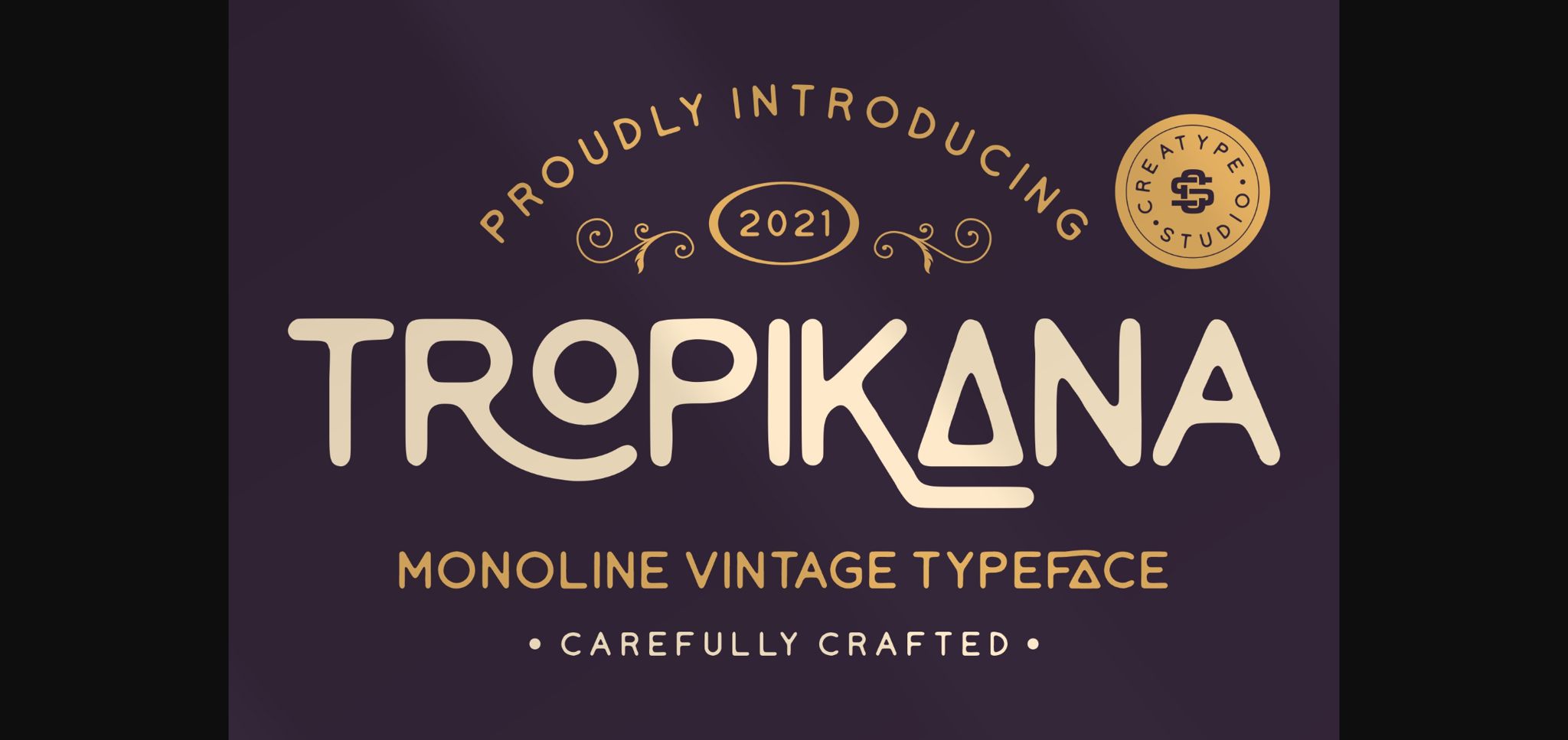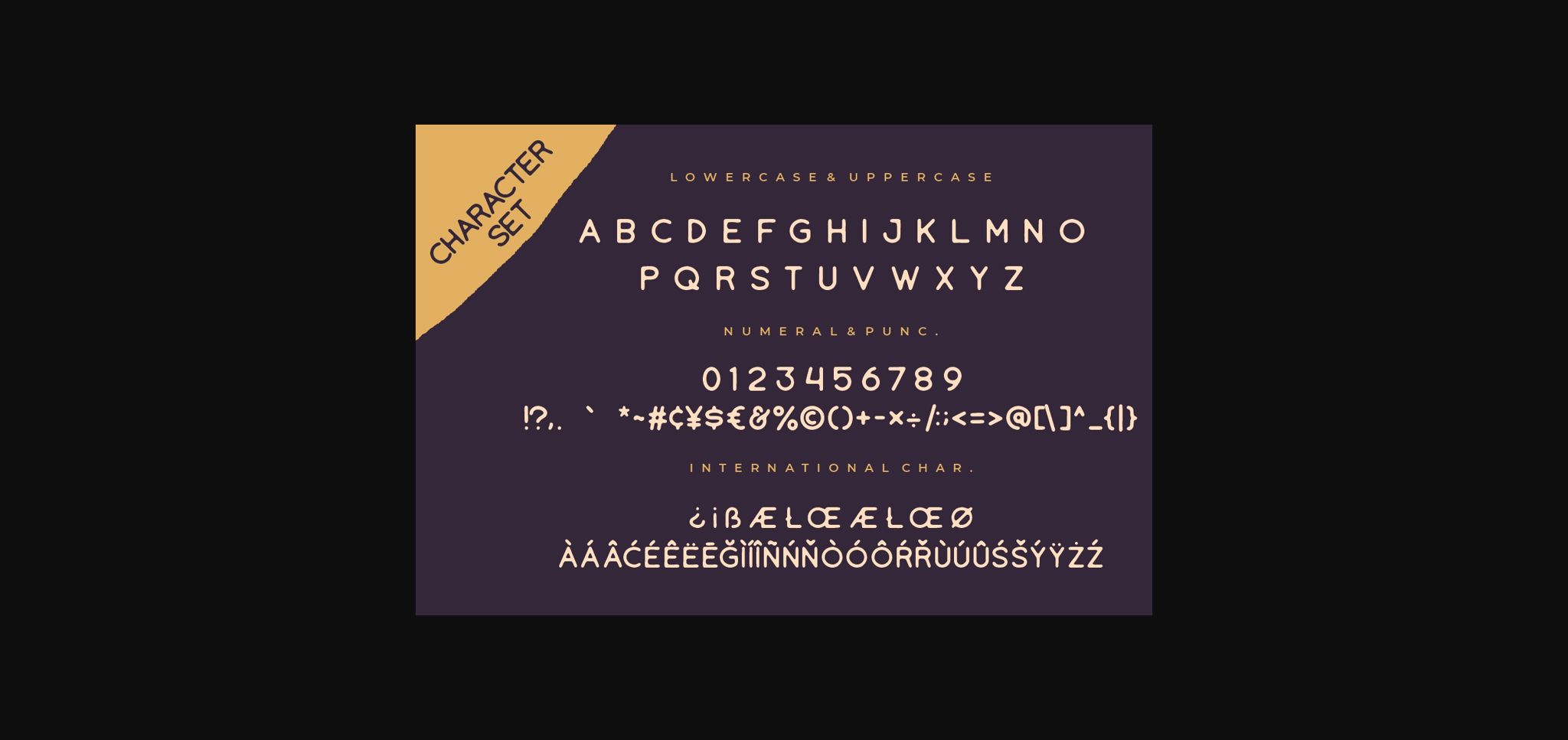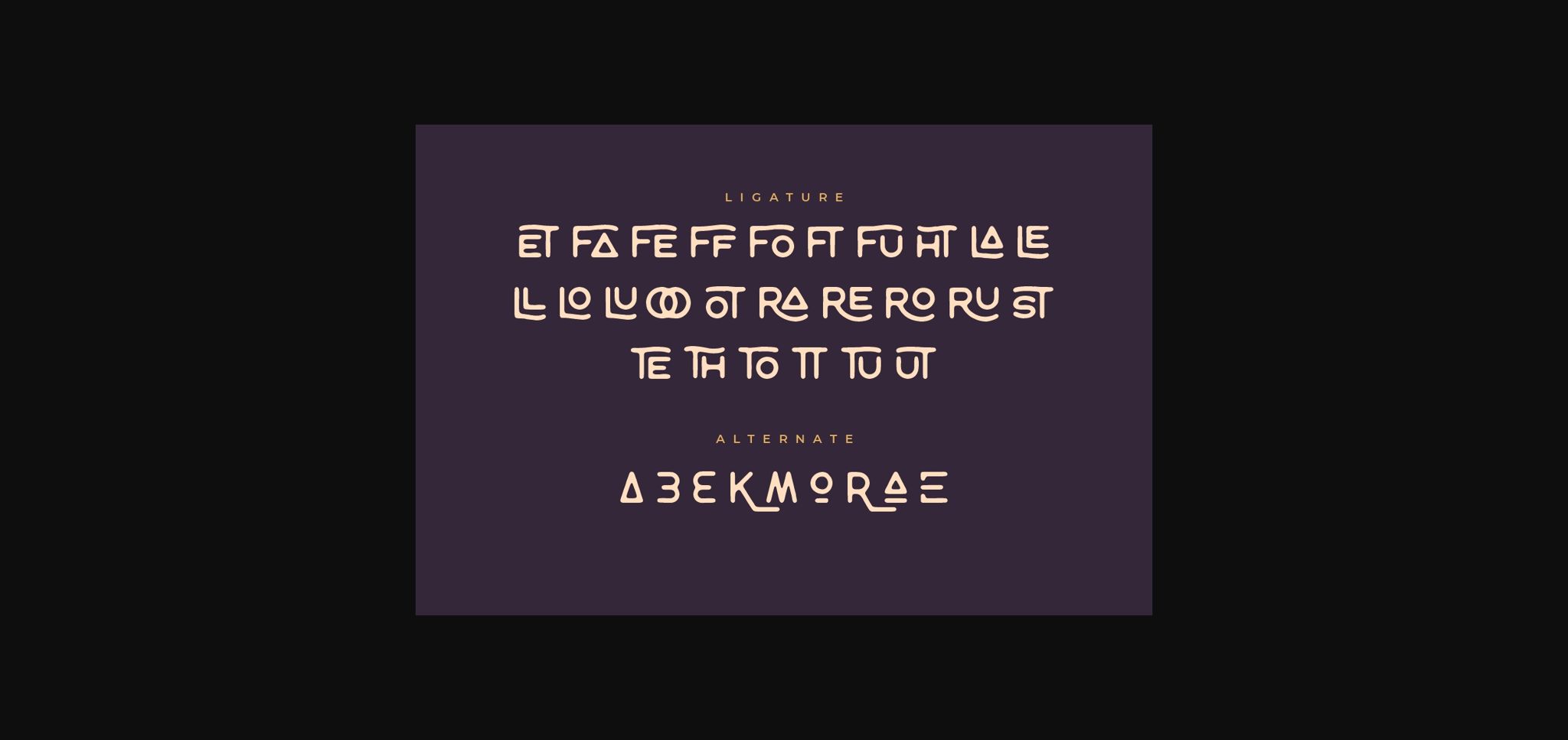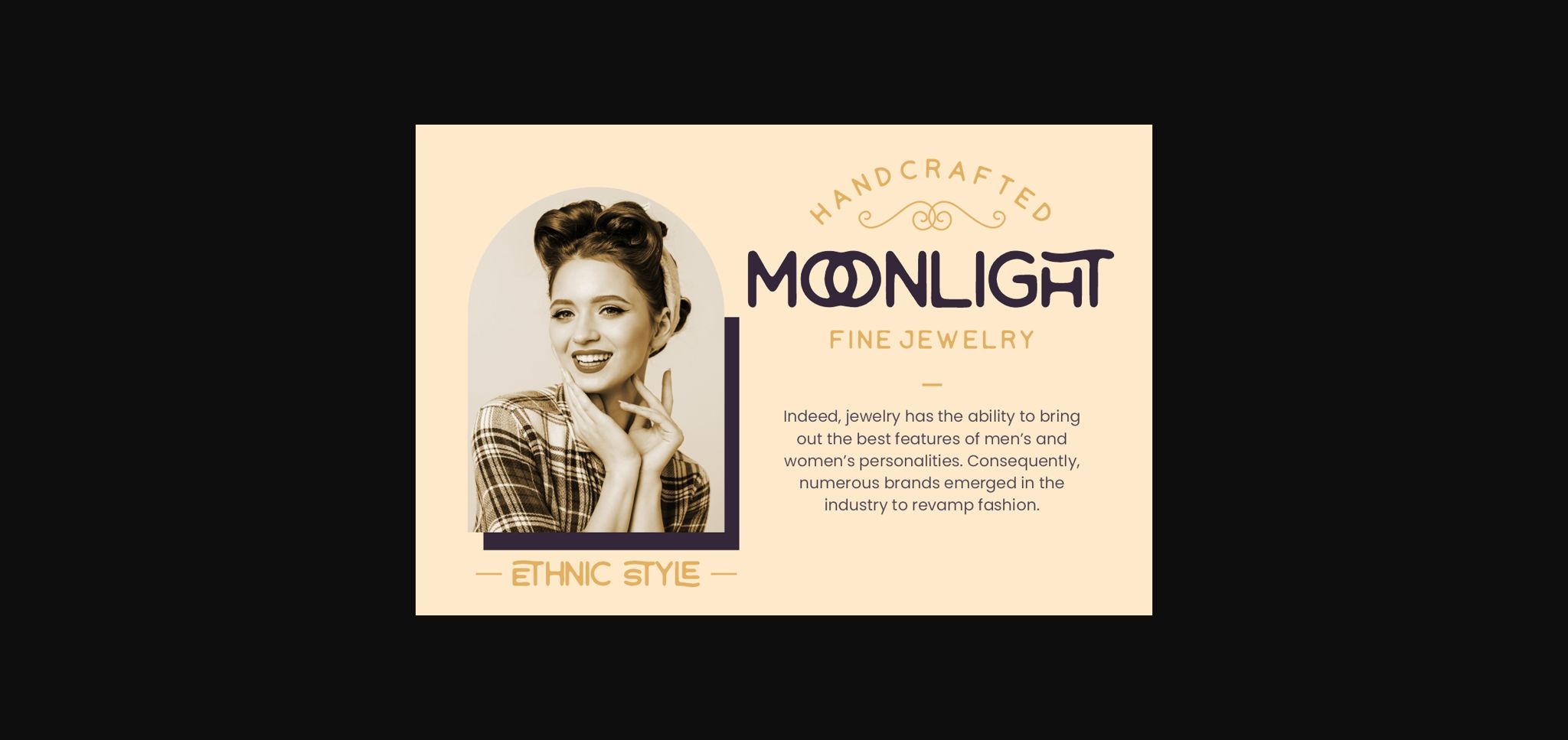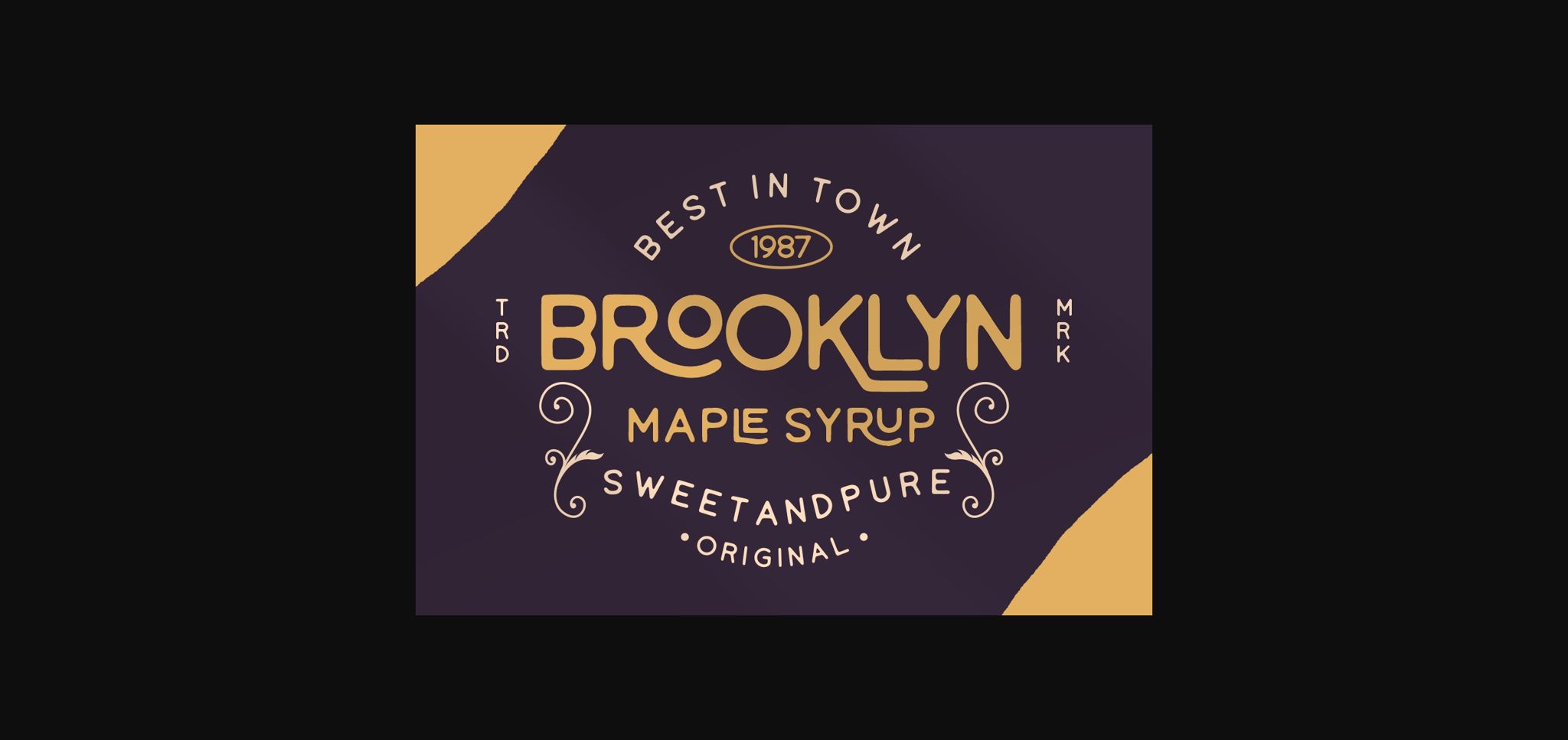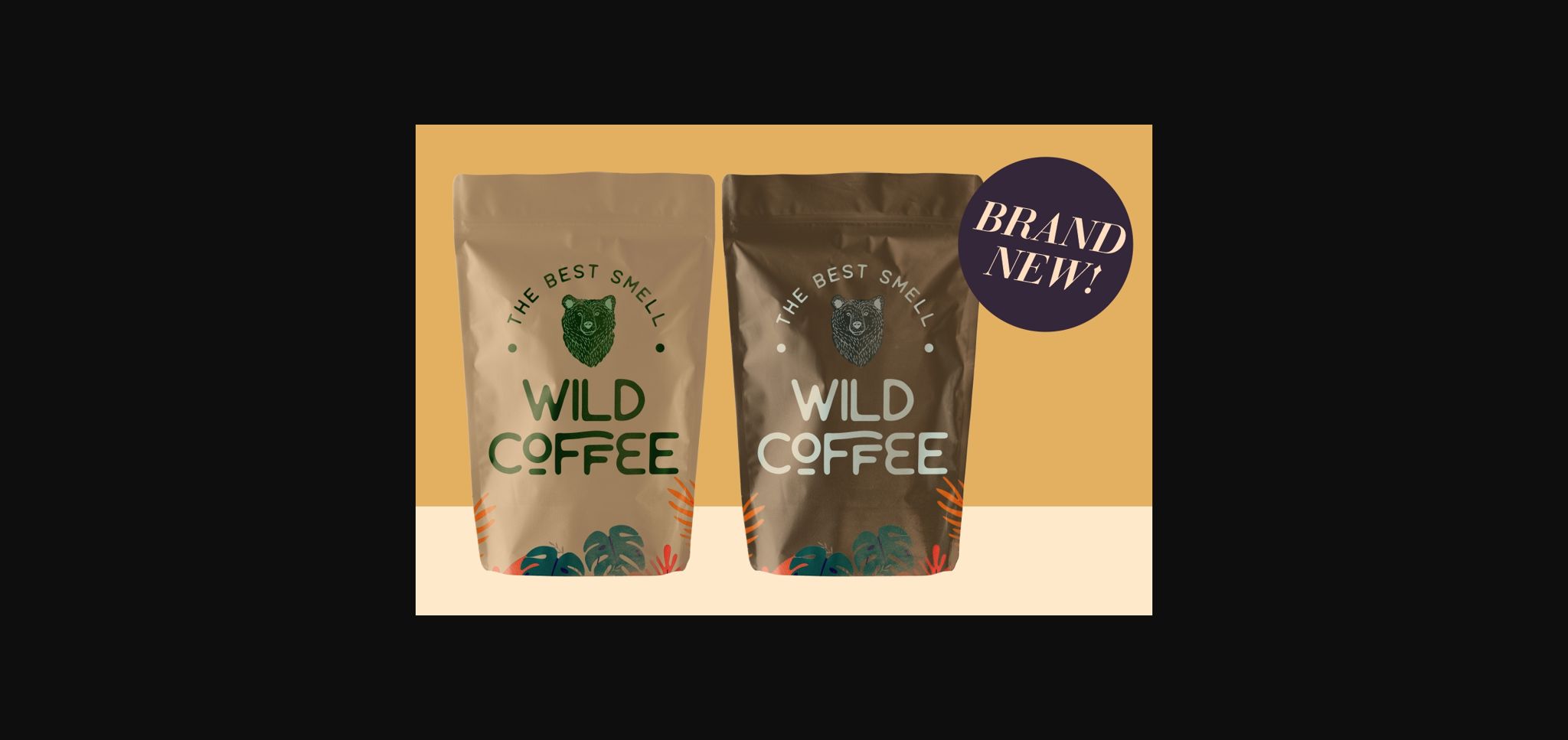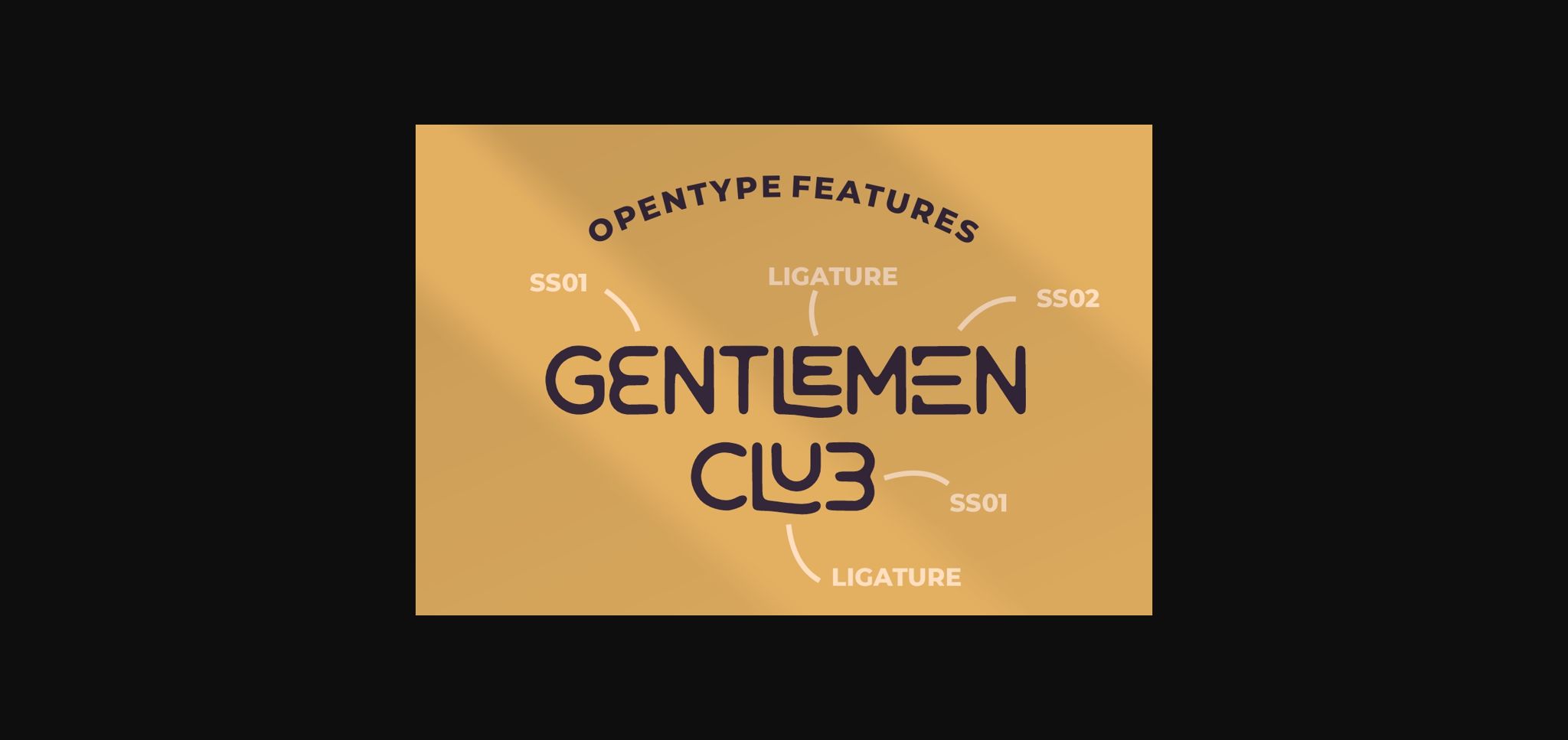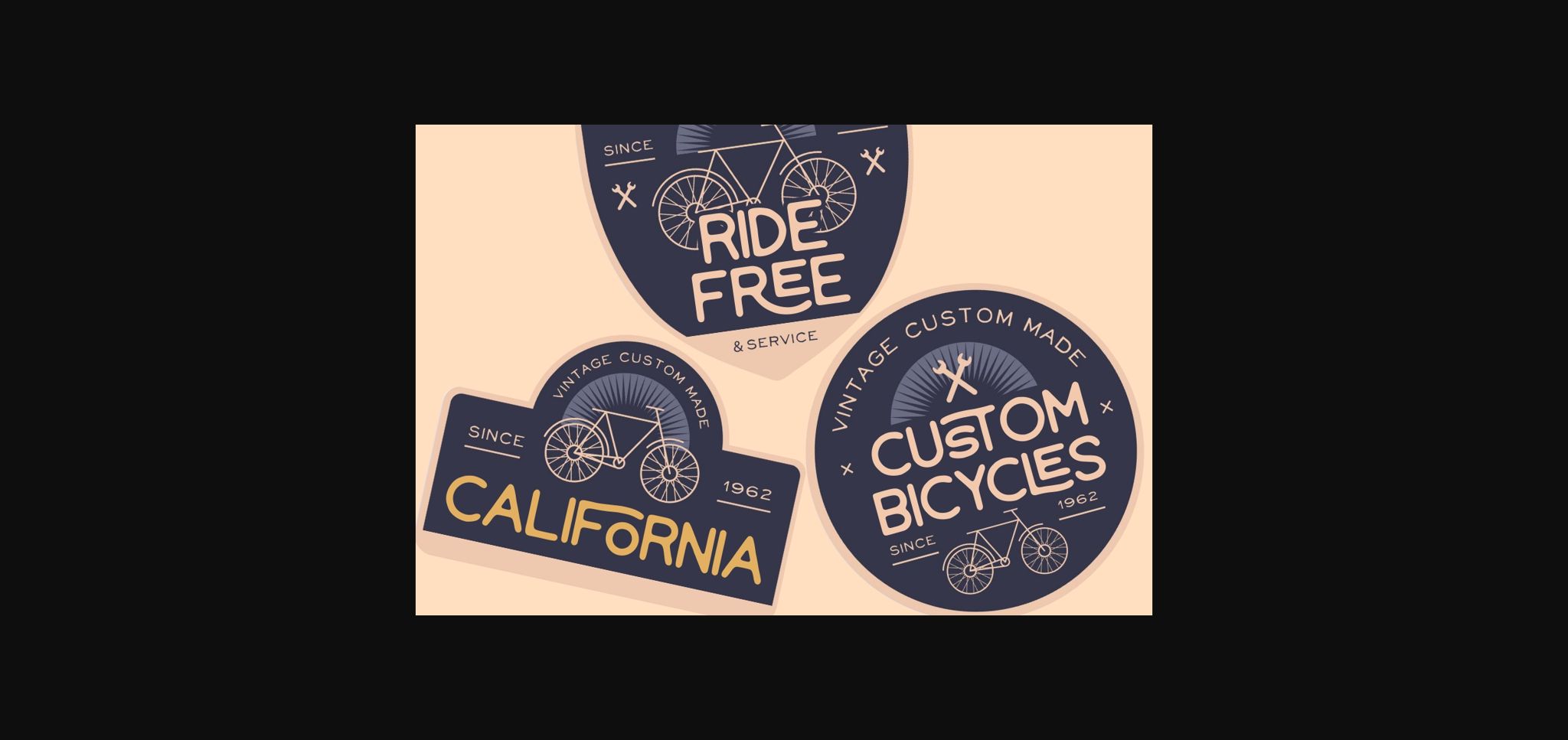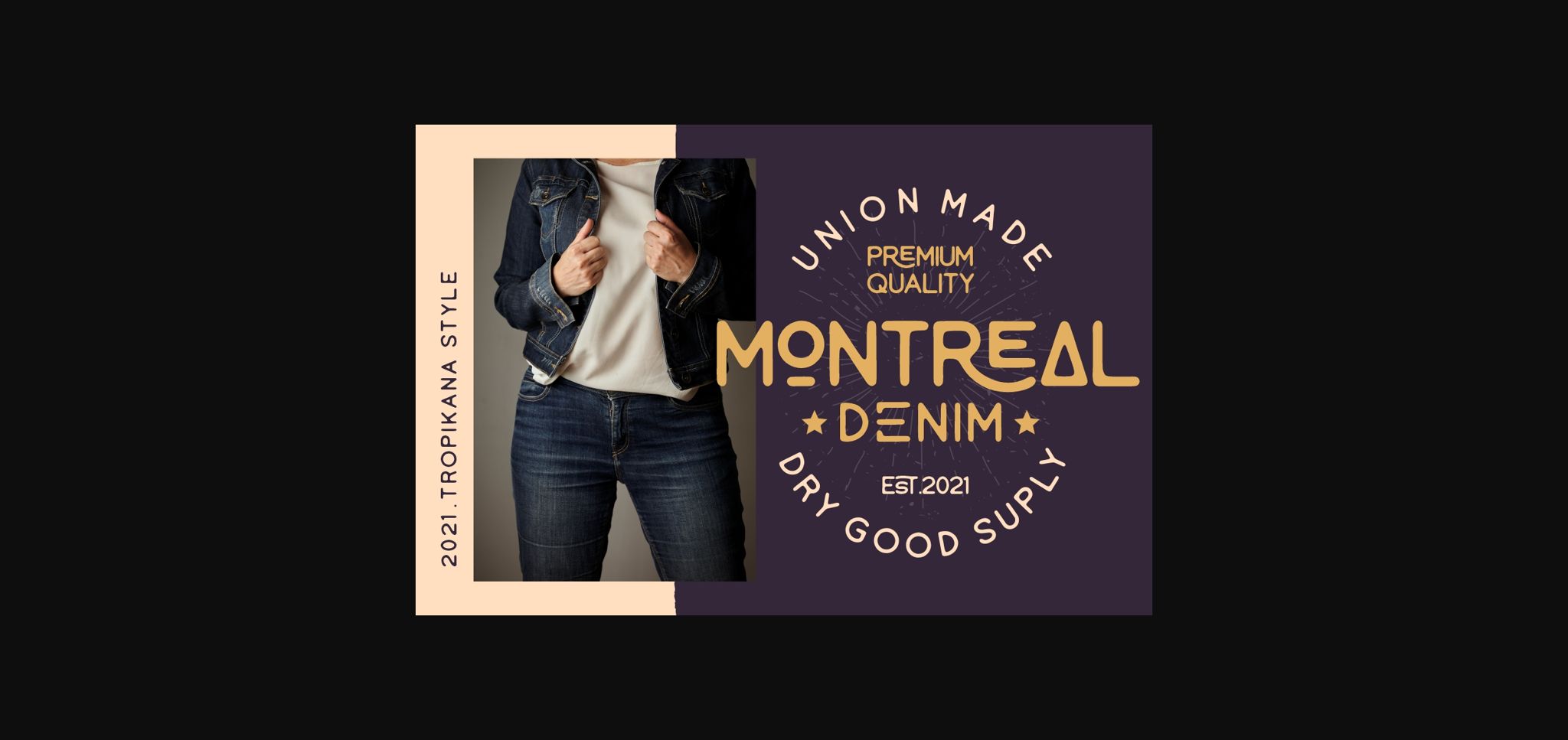
Tropikana Font
About Tropikana Font
Tropikana is a vintage, organic and distinct sans serif font. No matter the topic, this font will be an incredibly asset to your fonts’ library, as it has the potential to elevate any creation. Tropikana is PUA encoded which means you can access all of the glyphs and swashes with ease!